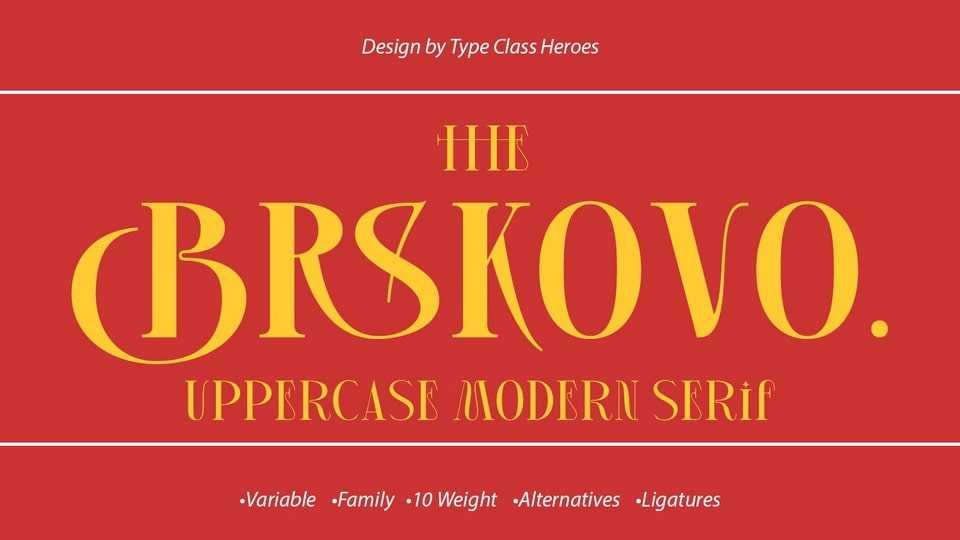
Download Brskovo font, a modern display serif typeface with a unique personality and sophisticated look. Use Brskovo font for any branding, product packaging, invitation, quotes, t-shirt, label, poster, logo etc.